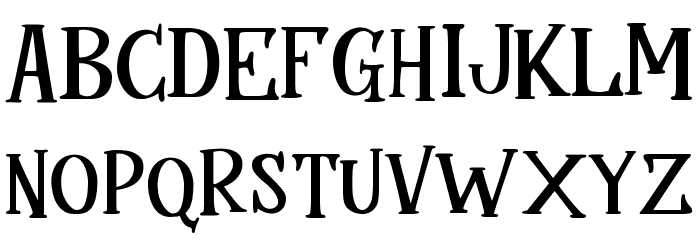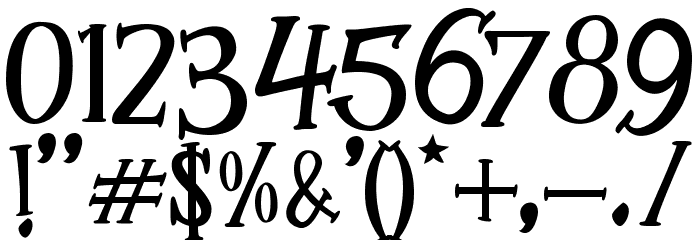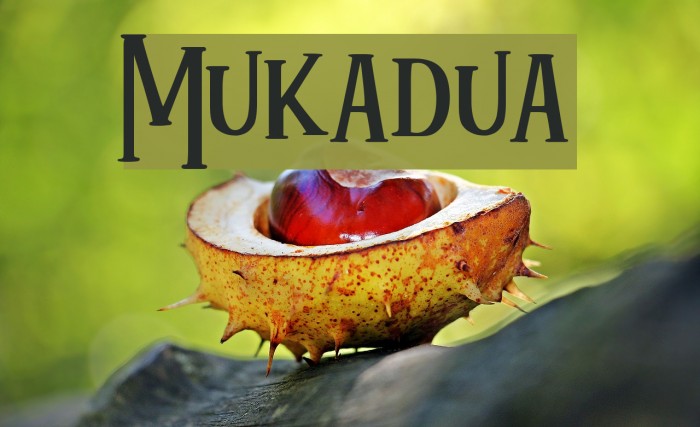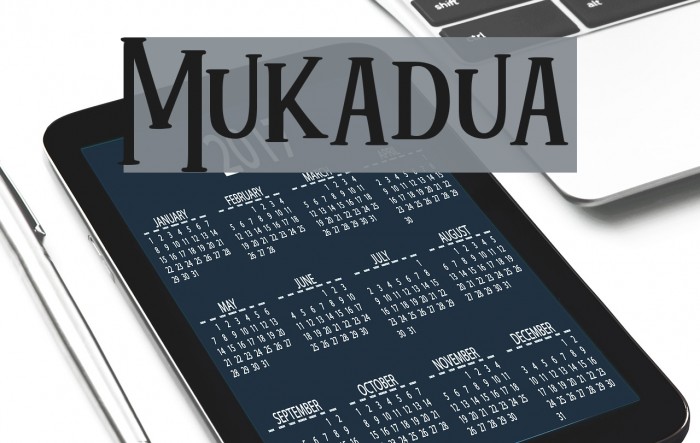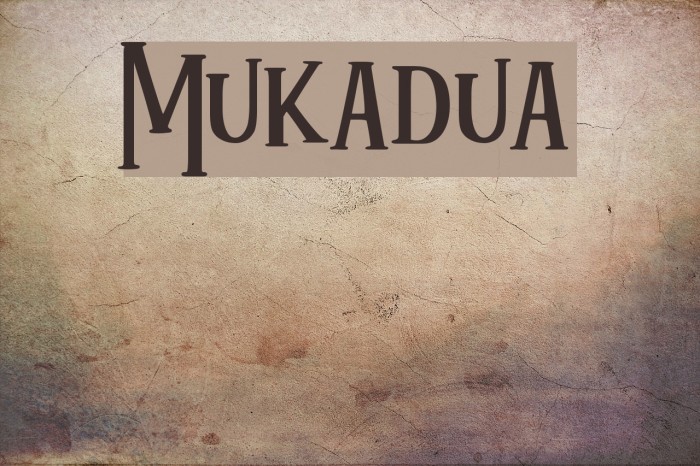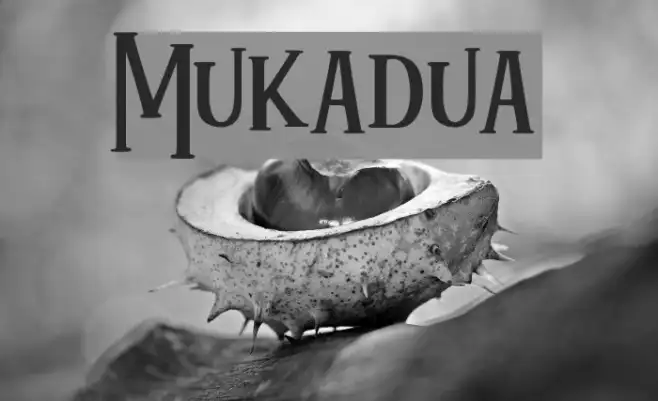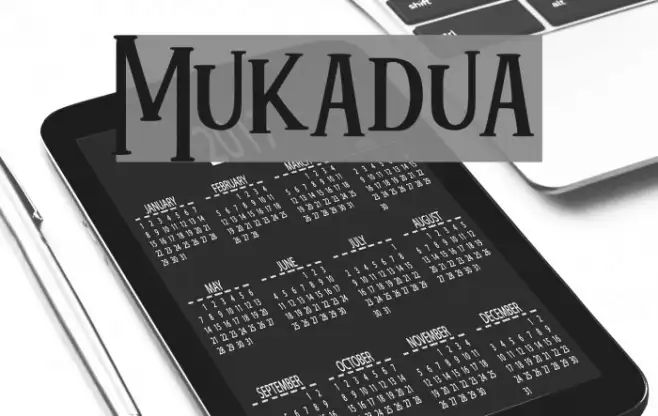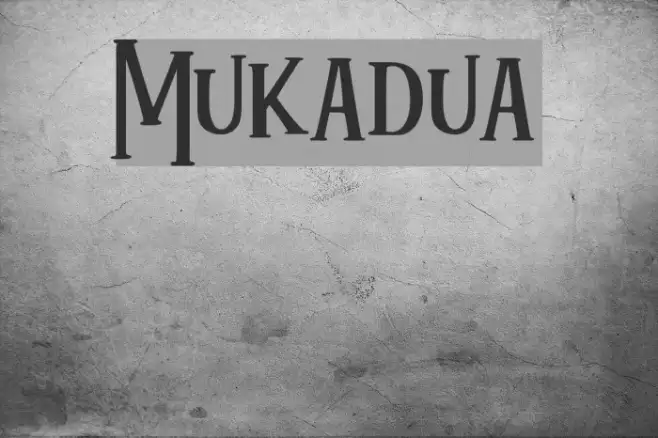
Mukadua Font
This font features a bold and dynamic style with a strong presence. The uppercase letters are tall and slightly condensed, with distinct serifs that add a touch of elegance. The lowercase letters maintain a consistent style, offering a harmonious flow between characters. Numbers are bold and clear, ensuring readability. The special characters are designed with the same attention to detail, making them stand out while remaining cohesive with the overall font style. This font's unique character is perfect for making a statement while maintaining a classic appeal.
A bold serif font with elegant serifs and a classic yet dynamic style.
- Proposed Projects: Ideal for branding, headlines, posters, and editorial design where a strong, classic presence is desired.
- Overall Style: Classic